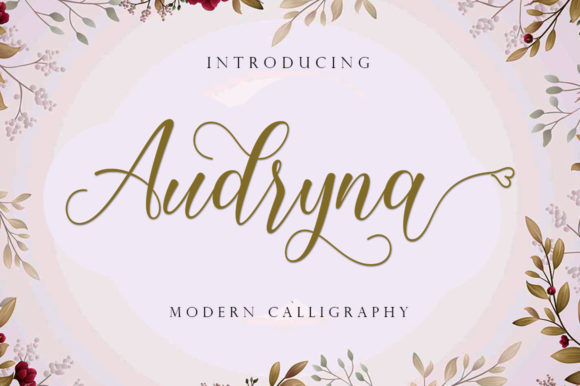
Audryna is a modern script font with an irregular baseline. It features a trendy and unique style that makes it perfect for wedding invitations, thank you cards, quotes, greeting cards, logos, business cards and more. It includes initial and terminal letters, alternates, ligatures and multiple language support.